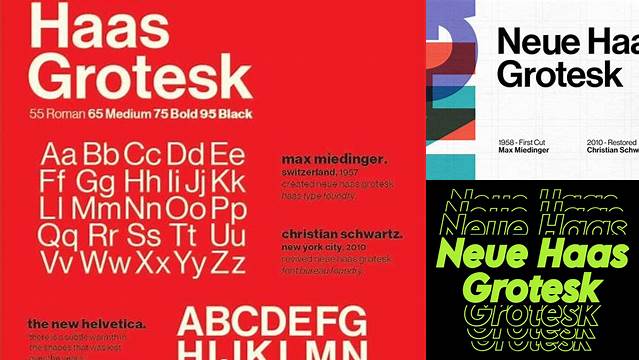
Neue Haas Grotesk Font Free: Your Ultimate Guide
Hey design enthusiasts, are you ready to dive into the world of typography? Today, we're going to explore the Neue Haas Grotesk font, a true classic that has left its mark on the design landscape. We'll talk about its history, its features, and most importantly, where you can find Neue Haas Grotesk font free resources. So, grab your favorite beverage, and let's get started!
1. The Genesis of Neue Haas Grotesk: A Brief History
The story of Neue Haas Grotesk font free begins with a Swiss typeface called Haas Grotesk, designed by the Haas Type Foundry in 1957. This font quickly gained popularity for its clean lines and versatility. However, as technology evolved, the need for a more refined version arose. Enter Neue Haas Grotesk, a revitalization of the original, meticulously crafted by Christian Schwartz in 2010. This update wasn't just a simple refresh; it was a deep dive into the character of the original, ensuring its timeless appeal while adapting to modern design demands. The goal was to preserve the spirit of Haas Grotesk while enhancing its usability and appearance in contemporary contexts. Schwartz meticulously analyzed the existing forms and made subtle adjustments to improve the font's legibility and aesthetic qualities, resulting in a more cohesive and polished typeface. This process involved careful consideration of the font's weight, spacing, and overall balance to optimize its performance across various applications, from print to digital platforms. The updated version retained the essence of the original, providing a nod to its legacy while embracing the future of design. These careful refinements ensured that the font would remain a relevant and respected choice for designers for years to come, cementing its status as an enduring classic. Understanding its origins allows a greater appreciation of its place in the world of typography. This deep understanding of its history will make you appreciate this font.
2. Key Features That Define the Neue Haas Grotesk
What makes Neue Haas Grotesk font free stand out from the crowd? Its key features are the secret. First and foremost, it's a sans-serif font, which means it lacks the small decorative strokes (serifs) found at the end of letter strokes. This clean and uncluttered style is a hallmark of modern design, making it perfect for both headings and body text. Next, the font boasts excellent legibility, even at smaller sizes. The careful attention to letterforms and spacing ensures that text remains easily readable. Neue Haas Grotesk offers a wide range of weights and styles, from light to bold, allowing designers to create visual hierarchies and emphasize different aspects of their content. The variety of weights ensures it's not only great for body text but also for headings and other design elements. Furthermore, the font's neutral design makes it incredibly versatile. It complements various design styles, from minimalist to contemporary, and can be used in various projects, including branding, web design, and print materials. The font's versatility is a major reason for its enduring popularity, as it can adapt to the specific needs of diverse design projects. This adaptability is what makes it so widely used across different industries and applications. The Neue Haas Grotesk font free is not just another font; it's a design tool that lets you elevate your projects.
2.1. Versatility in Design Applications
This font's versatility makes it a go-to choice for designers across diverse fields. For branding, its clean and neutral design lends itself perfectly to logo creation, ensuring a timeless and professional look. Its adaptability is demonstrated in its use by both established brands and startups aiming to establish a strong visual identity. In web design, Neue Haas Grotesk font free shines through its excellent legibility, making it ideal for body text, which improves the user experience. This is critical in the digital world where content consumption is fast-paced. The font's availability in various weights and styles helps create visual hierarchy and emphasize important information. Print materials like brochures and posters benefit from its clear and modern aesthetic. The font's ability to communicate effectively across different media enhances the impact of the design. It's not just about aesthetics; it's also about functionality. The consistent performance of Neue Haas Grotesk font free ensures brand consistency across all platforms, creating a cohesive and recognizable brand image. This is essential for companies wanting to maintain a strong presence in today's competitive market. Furthermore, its compatibility with various design software and operating systems makes it an accessible tool for designers, streamlining the workflow and promoting efficiency in project execution. The fact that this font is so versatile is its strength. It is the reason this font remains a favorite among designers of all stripes.
3. Weights and Styles: Exploring the Neue Haas Grotesk Family
One of the best things about Neue Haas Grotesk font free is the wide range of weights and styles available. This versatility is key to its enduring appeal. You'll find everything from delicate light weights to bold, attention-grabbing heavy weights. This extensive selection allows you to create visual contrast and hierarchy in your designs, guiding the viewer's eye and emphasizing important information. Whether you're designing a website, a print brochure, or a logo, the various weights allow you to tailor the typeface to your specific needs. Different weights work better for different purposes, from body text to headlines. The font's styles also include italics, which adds another dimension to your designs. Italicized text can be used for emphasis, differentiating quotes, or adding a touch of elegance. Furthermore, the expanded character set ensures that Neue Haas Grotesk font free supports a wide array of languages, broadening its usefulness for international projects. The wide array of styles and weights allows you to create designs that are both beautiful and functional. Understanding these options helps you make informed choices, allowing you to create designs that are visually appealing and meet the needs of your projects. This allows for greater creativity and control over the design process. This is truly a versatile font.
3.1. Contrasting Weights and Styles for Visual Hierarchy
The strategic use of contrasting weights and styles within the Neue Haas Grotesk font free family is a cornerstone of effective design. By pairing a bold weight for headlines with a lighter weight for body text, you instantly create a visual hierarchy that guides the reader's eye. This technique is critical for grabbing attention and communicating key information. For instance, when designing a website, a bold, capitalized heading in Neue Haas Grotesk can immediately draw the user's focus to the most important content. Following this with a regular or light weight for the body text ensures readability and a comfortable reading experience. The use of italics can further enhance the visual structure. Italicizing a subheadline or a pull quote can provide emphasis and add a touch of sophistication. The combination of weight and style variations not only improves readability but also introduces an element of visual interest, preventing the design from appearing monotonous. This method is fundamental to visual communication, ensuring that the most critical information is immediately apparent while providing context for the reader. By using these contrasting elements creatively, designers can enhance the overall impact and aesthetic appeal of their projects. This adds depth and visual interest to the design, leading to an improved user experience. This also helps you with creating a design that is both effective and visually appealing.
4.1. Open-Source Alternatives to Neue Haas Grotesk
When searching for a Neue Haas Grotesk font free, it's essential to focus on open-source alternatives that offer similar aesthetics and functionalities. These fonts are usually available for free download and usage, often with various licenses that permit commercial use. Many open-source fonts are designed to mimic the clean lines and modern feel of Neue Haas Grotesk. By exploring platforms like Google Fonts and Font Squirrel, you can discover fonts that share its sans-serif characteristics, legibility, and versatile weights. This includes a range of weights, from light to bold, which allows for creating diverse designs that cater to different visual needs. Careful consideration should be given to the specific licenses attached to each font to guarantee compliance with usage regulations. Some licenses, like SIL Open Font License, are very permissive, allowing for free usage, modification, and redistribution. In contrast, others may require attribution or restrict certain commercial applications. Always carefully review the licensing agreements before integrating these fonts into your projects. Searching for open-source alternatives provides access to high-quality typography without the financial constraints associated with premium fonts. This is especially beneficial for designers, students, and businesses with limited budgets. It’s about finding fonts that align with your design needs while staying within the parameters of your budget. This enables design projects that capture the essence of Neue Haas Grotesk but maintain affordability and accessibility. This ensures compliance with legal requirements and helps avoid potential copyright infringements.